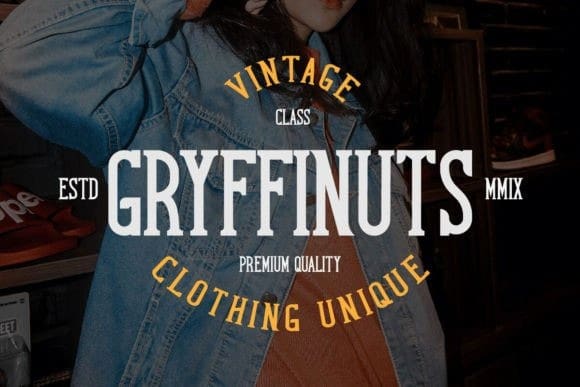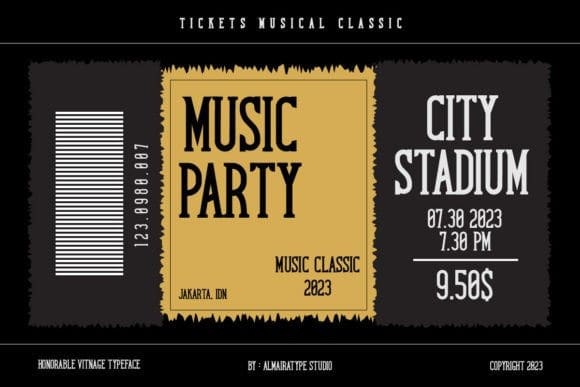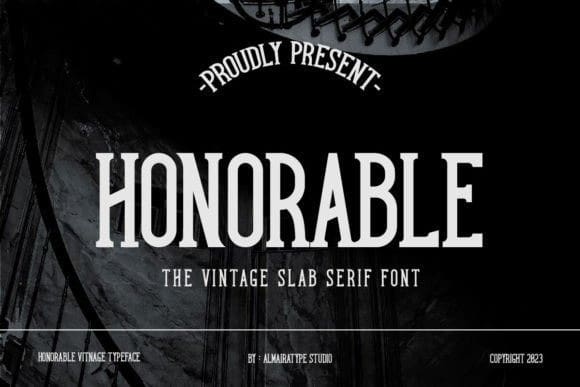
Honorable Font
Honorable Font is a timeless vintage slab serif font that exudes sophistication and character. Inspired by the elegance of bygone eras, it features bold serifs and refined letterforms. This font lends an air of authority to any project, whether it’s used in branding, packaging, or editorial design. Honorable combines classic charm with a contemporary edge, making it a versatile and stylish choice.